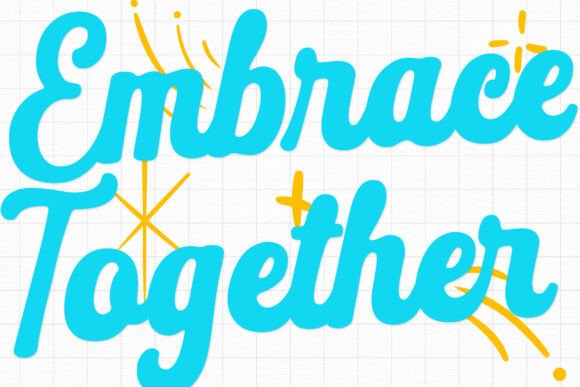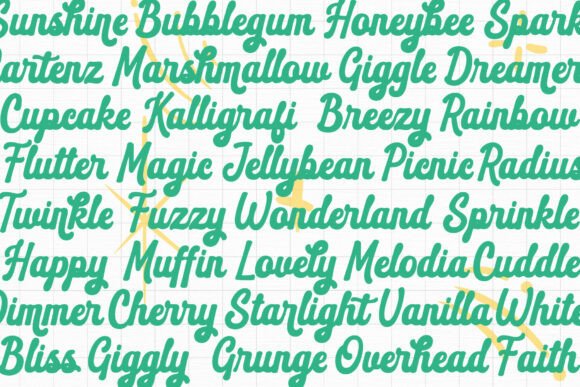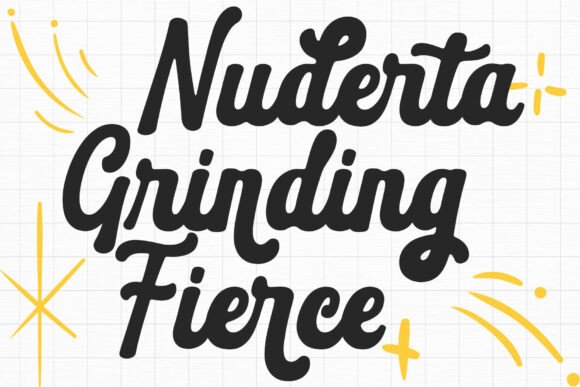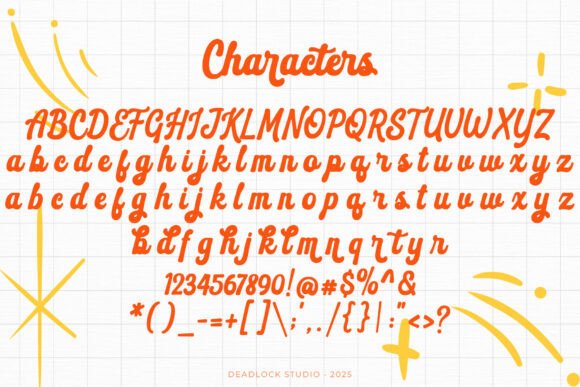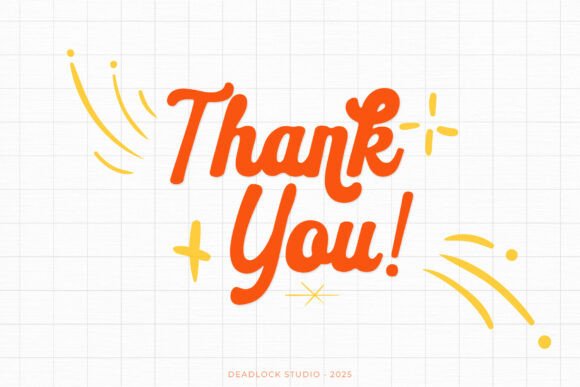
Introduction to Munchkin Pie Font Font
Fonts play a crucial role in design, and the Munchkin Pie Font font is a typeface that brings both character and versatility to any project. Whether you’re working on a branding project, a website, or a print design, the Munchkin Pie Font font offers a unique style that can elevate your work.
MUNCHKIN PIE is a bold vintage script font bursting with retro charm and childlike wonder.
This friendly and rounded typeface combines a hand-lettered look with mid-century inspiration The letterforms are full of personality β perfect for food packaging, toy branding, childrenβs books, retro posters, or playful logo designs.
Key Features of Munchkin Pie Font Font
Why Choose Munchkin Pie Font Font?
The Munchkin Pie Font font is more than just a typeface β it’s a design tool that helps you communicate your message with style and clarity. Its unique character set and versatile design make it suitable for a wide range of applications, from elegant invitations to bold headlines.
With its carefully crafted letterforms and balanced proportions, the Munchkin Pie Font font ensures readability and visual appeal across all mediums.
What makes Munchkin Pie Font font special?
The Munchkin Pie Font font stands out with its unique design, exceptional readability, and versatility across various design applications.